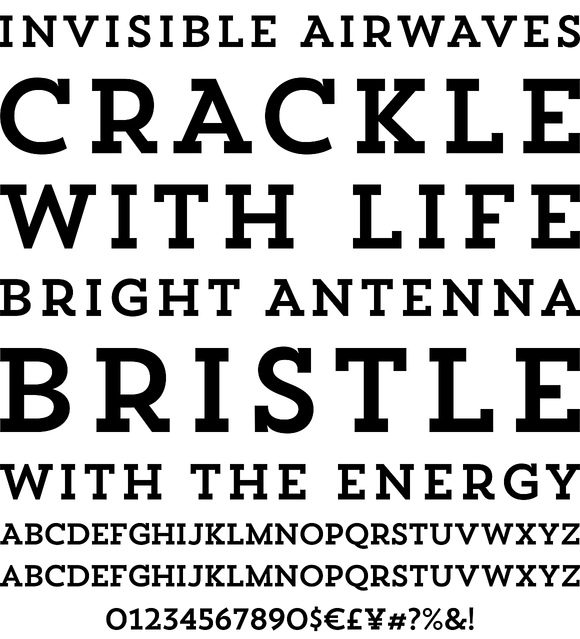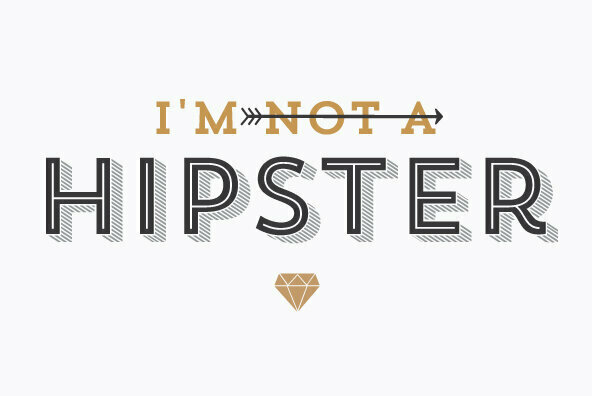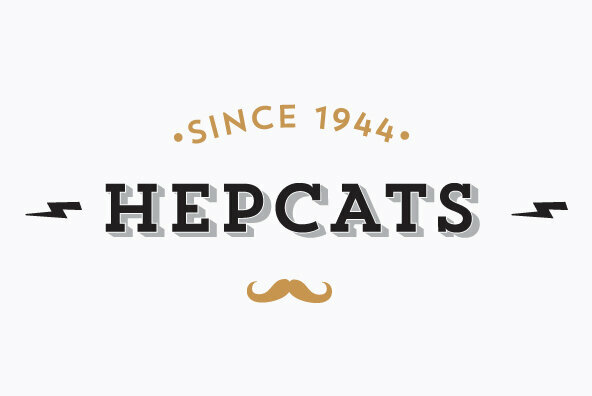
Trend Font
Trend is a font made of layers, taking as a basis a sans and a slab font. It is the result of observation, search and study of the last global trends. Trend tries to capture the aesthetics of fashion or even fashion itself, integrating elements of a very popular and current trend. Is a typeface designed to be used without need to add anything external to it, because it has all components required for this.
Design by Daniel Hernandez & Paula Nazal.